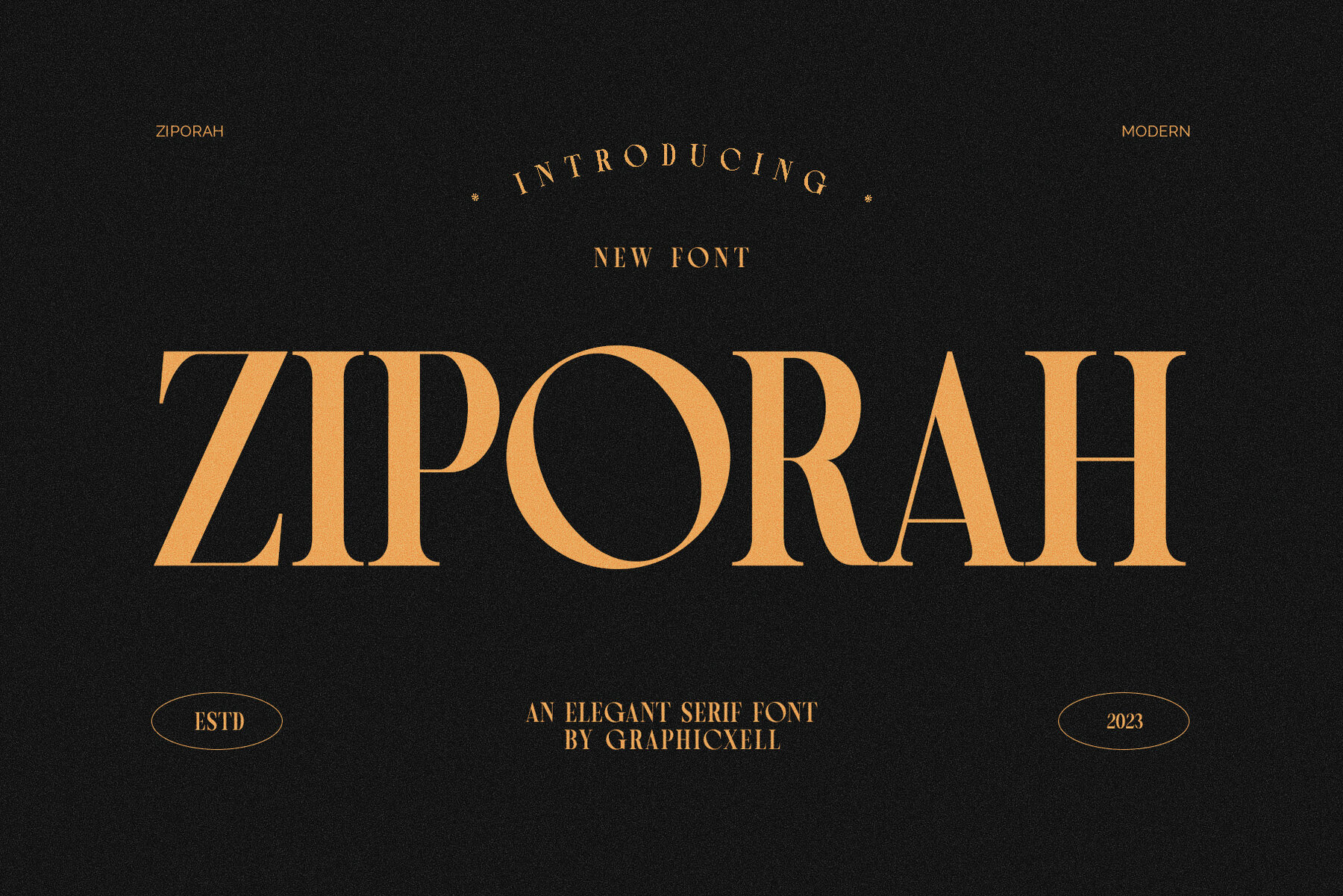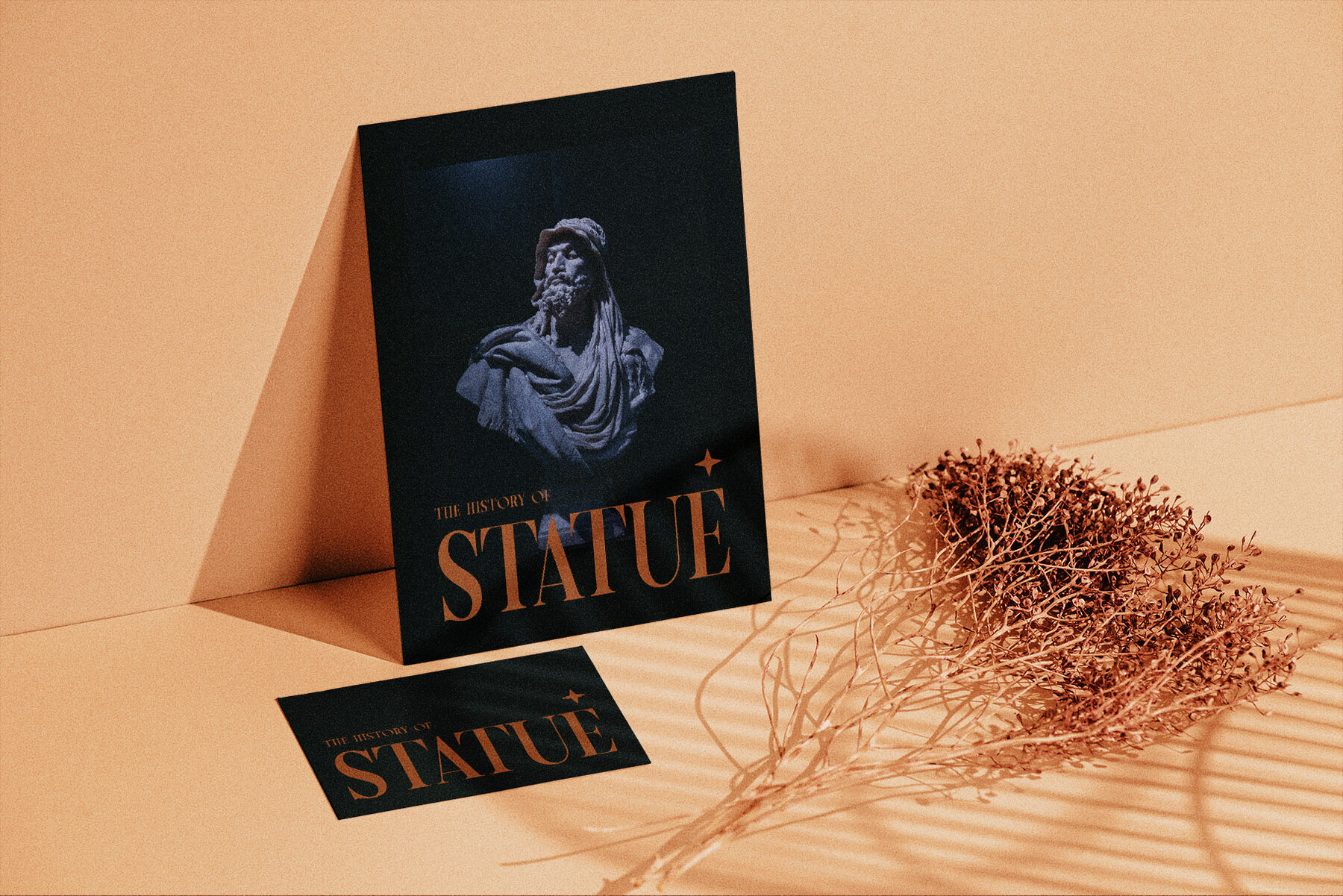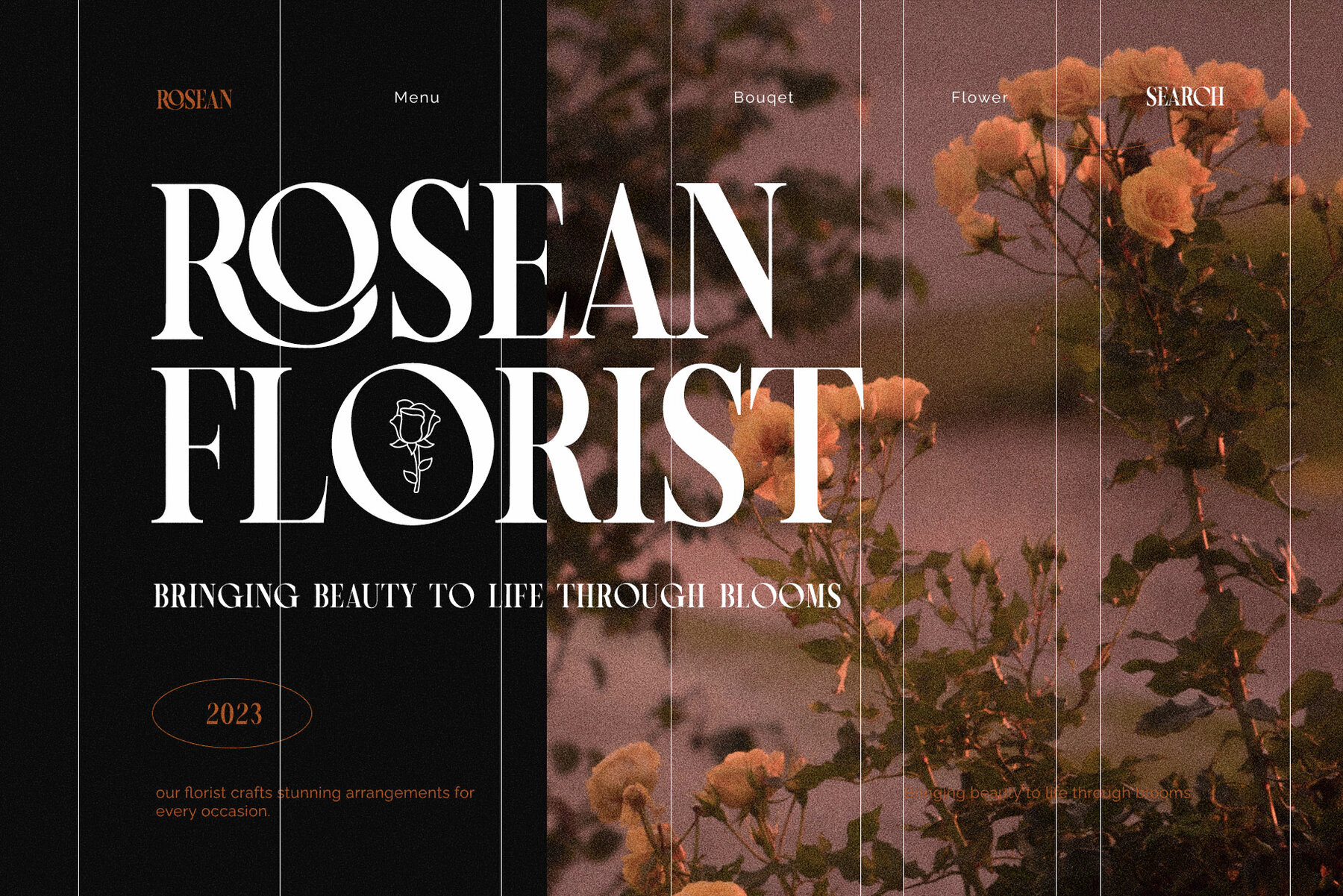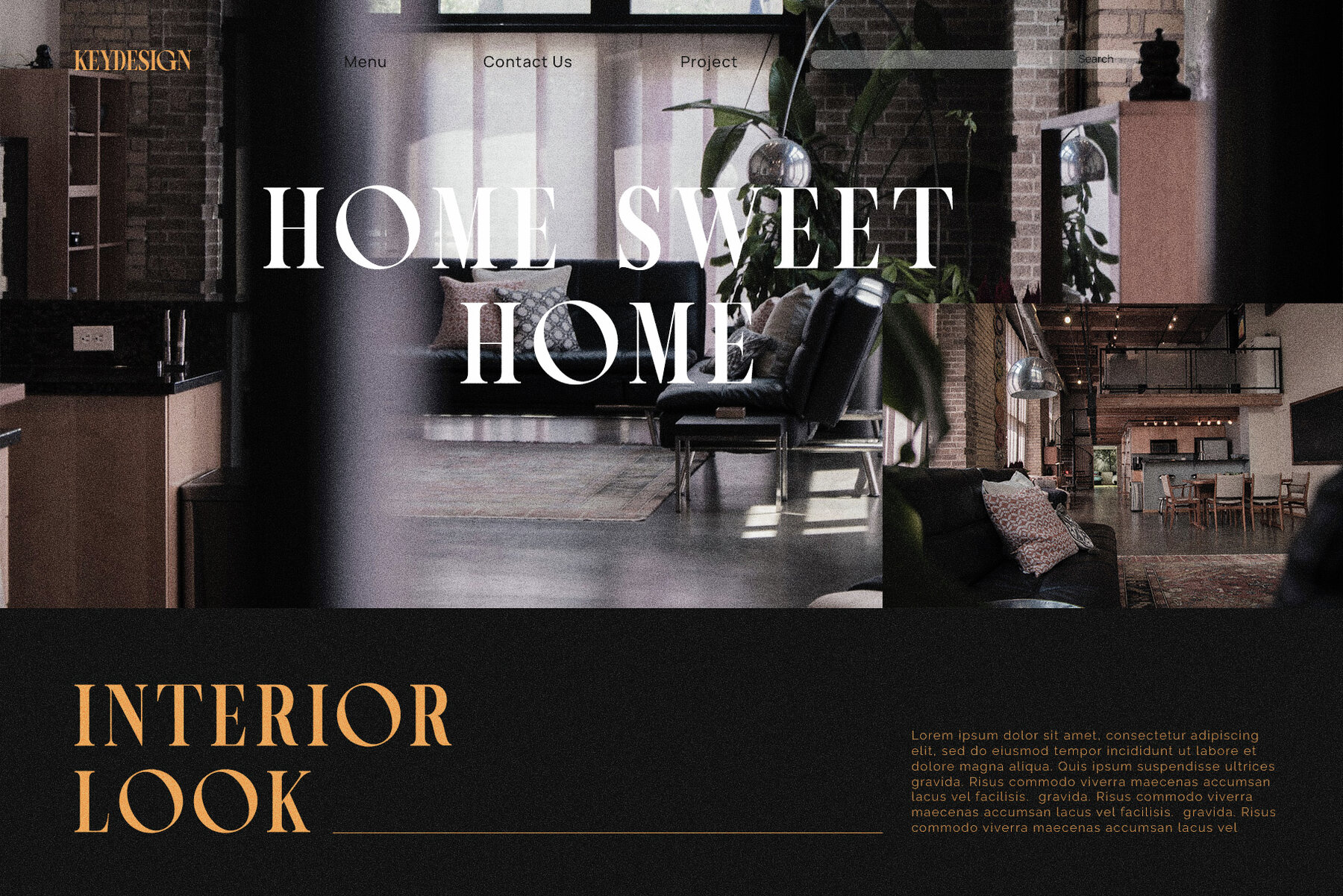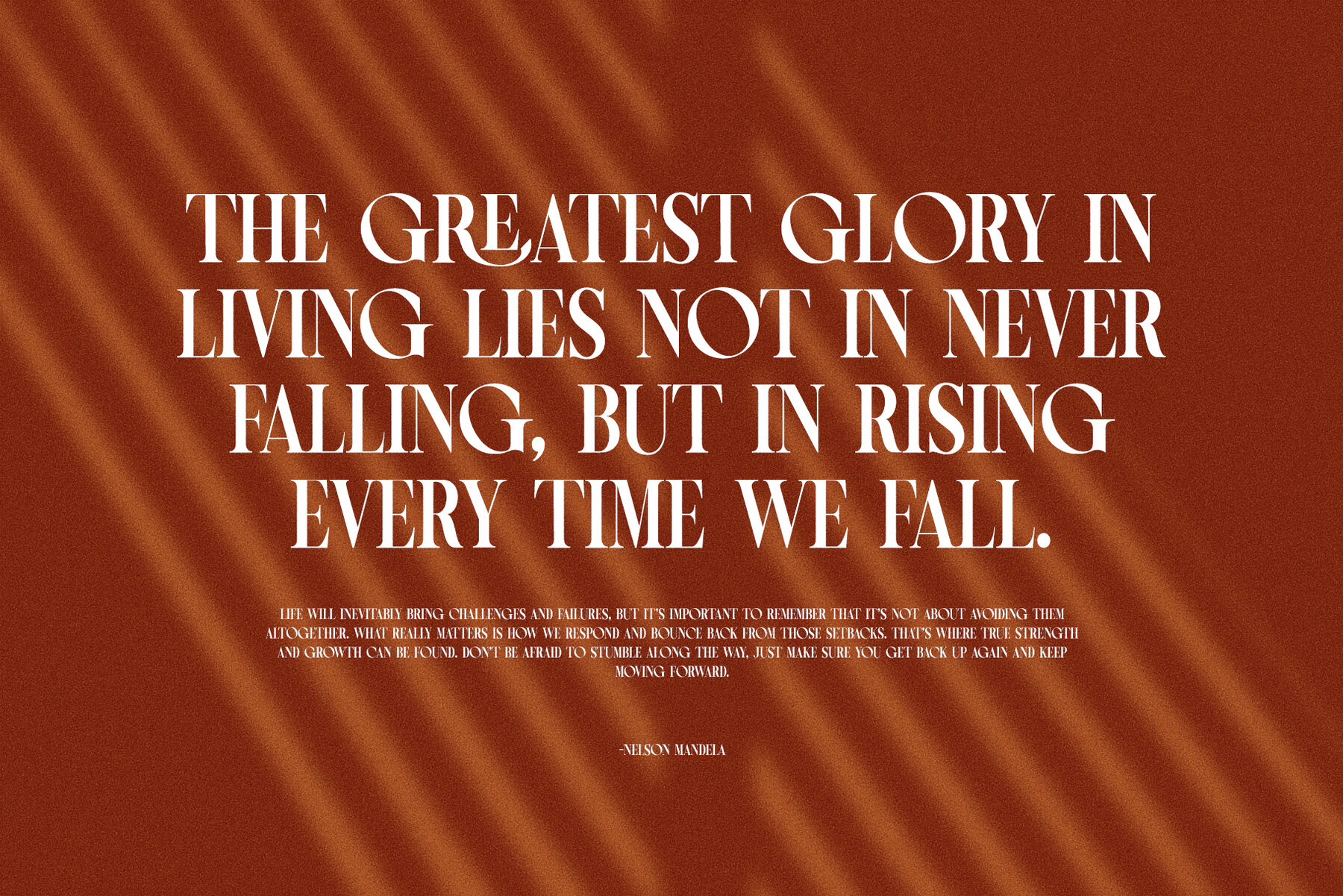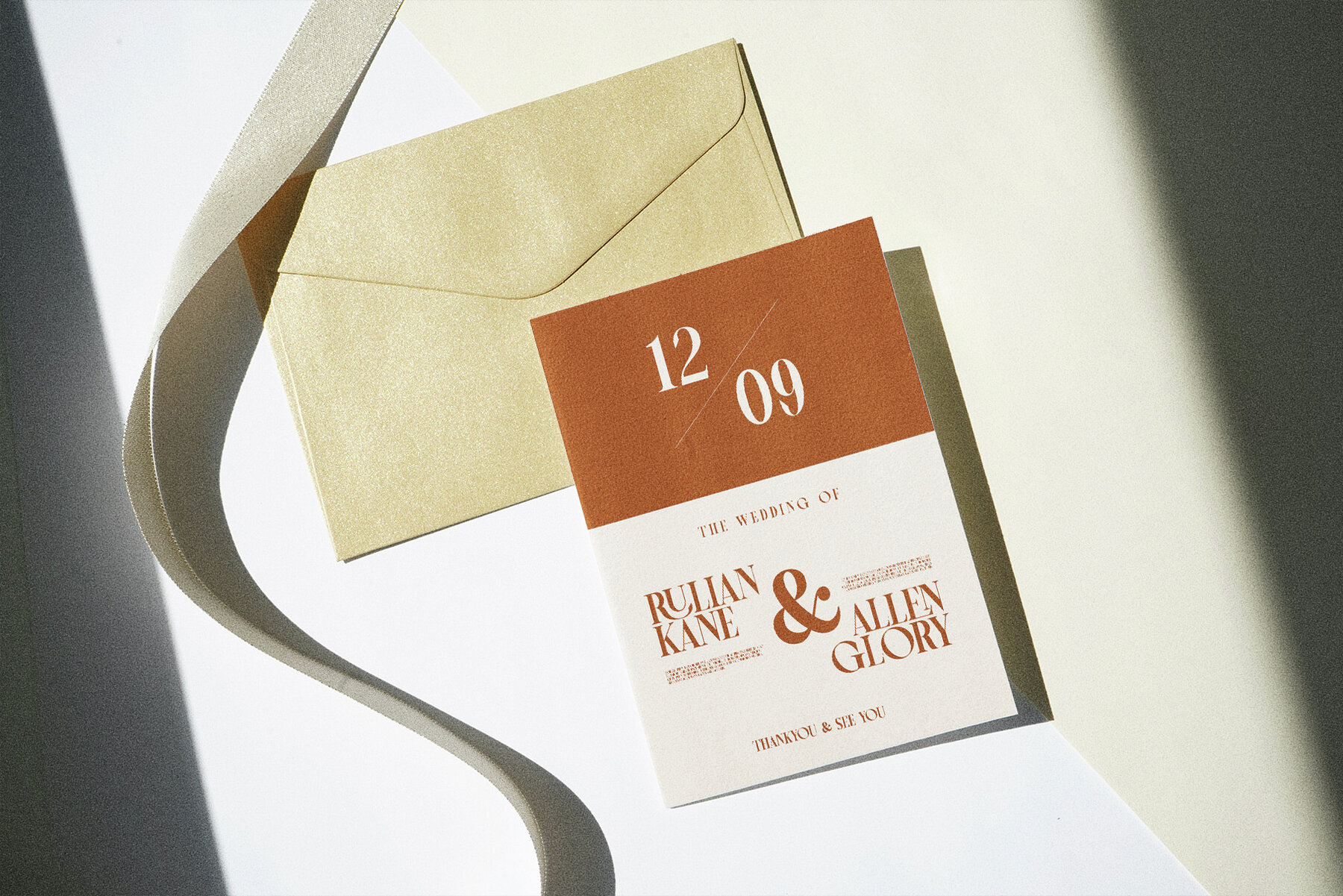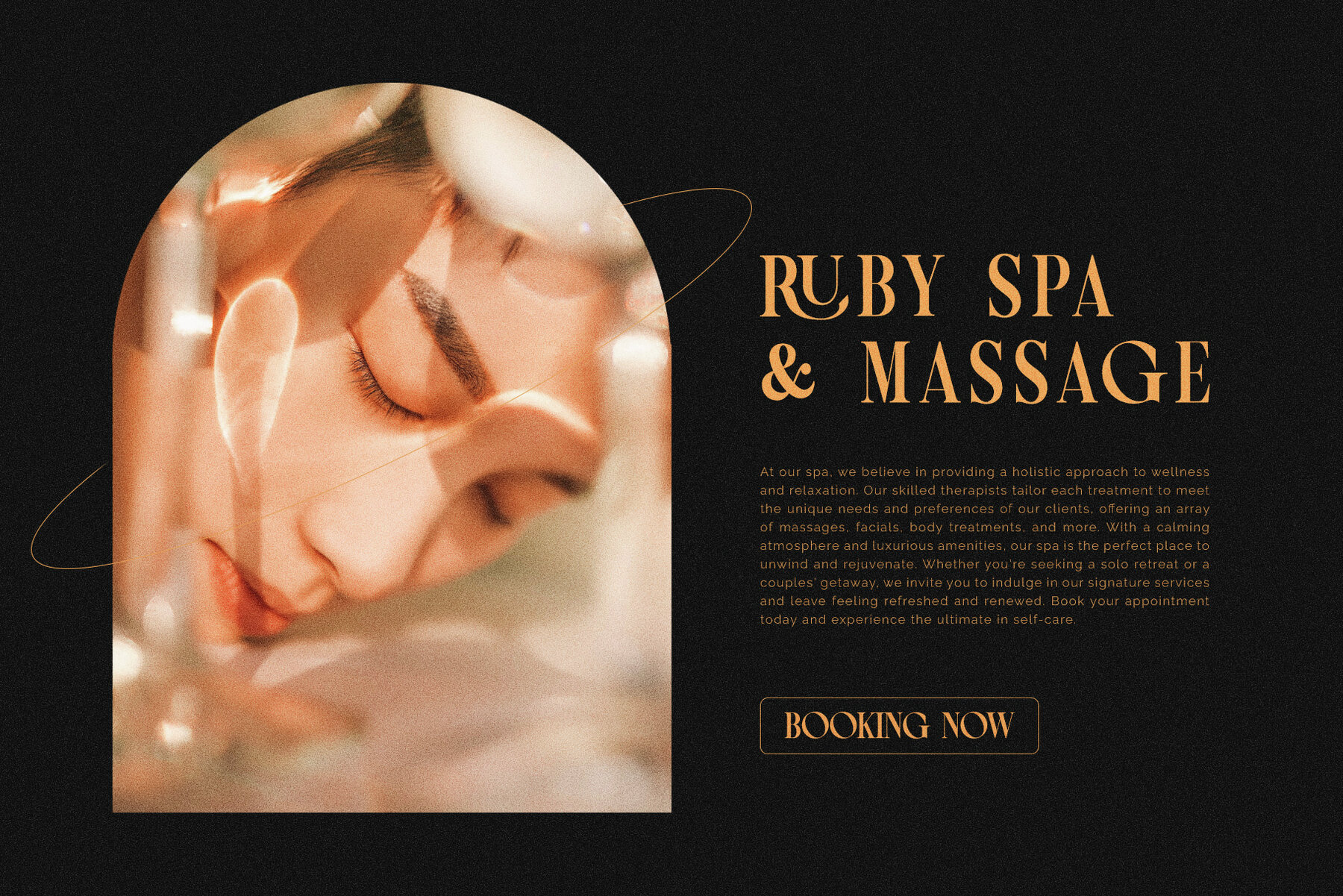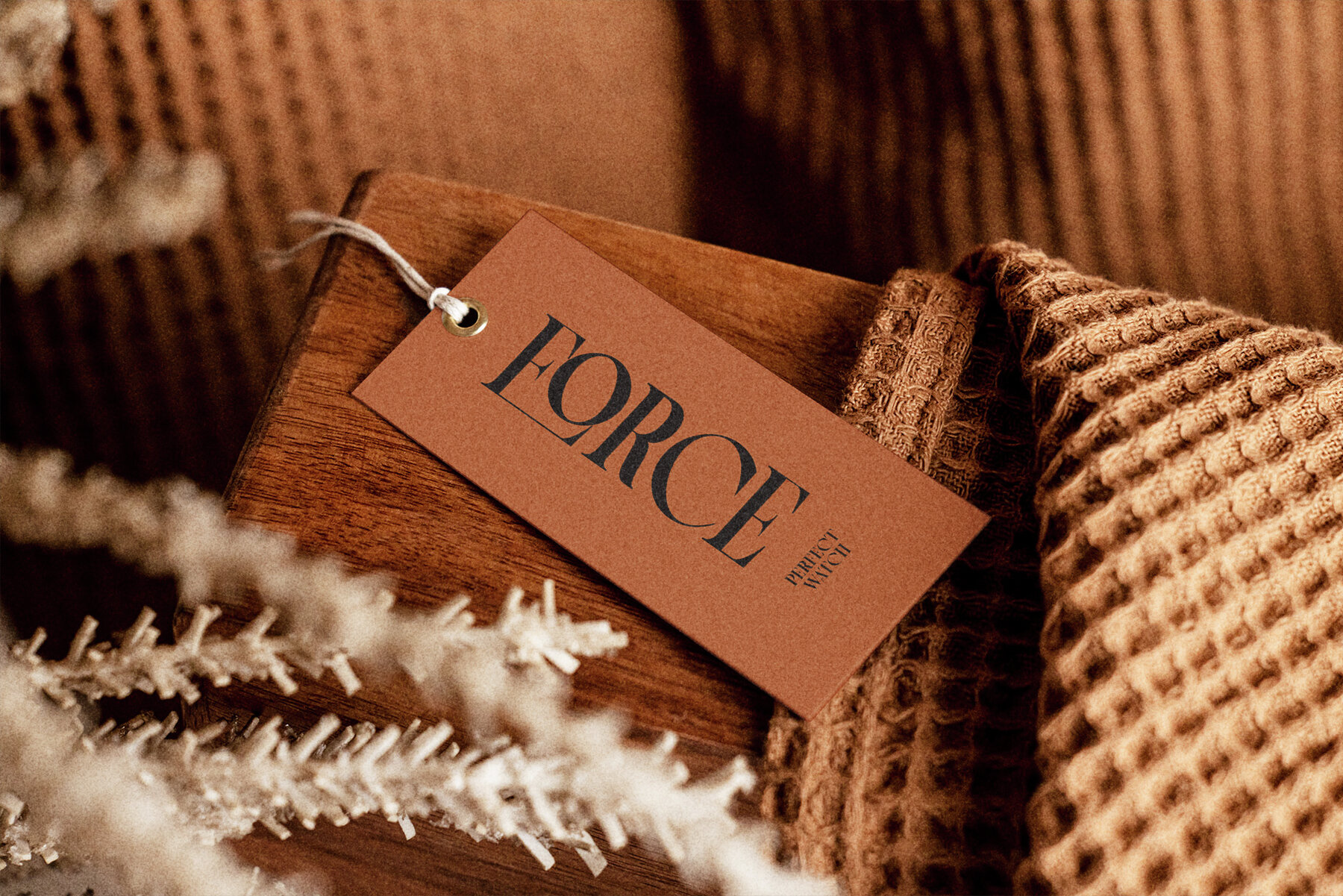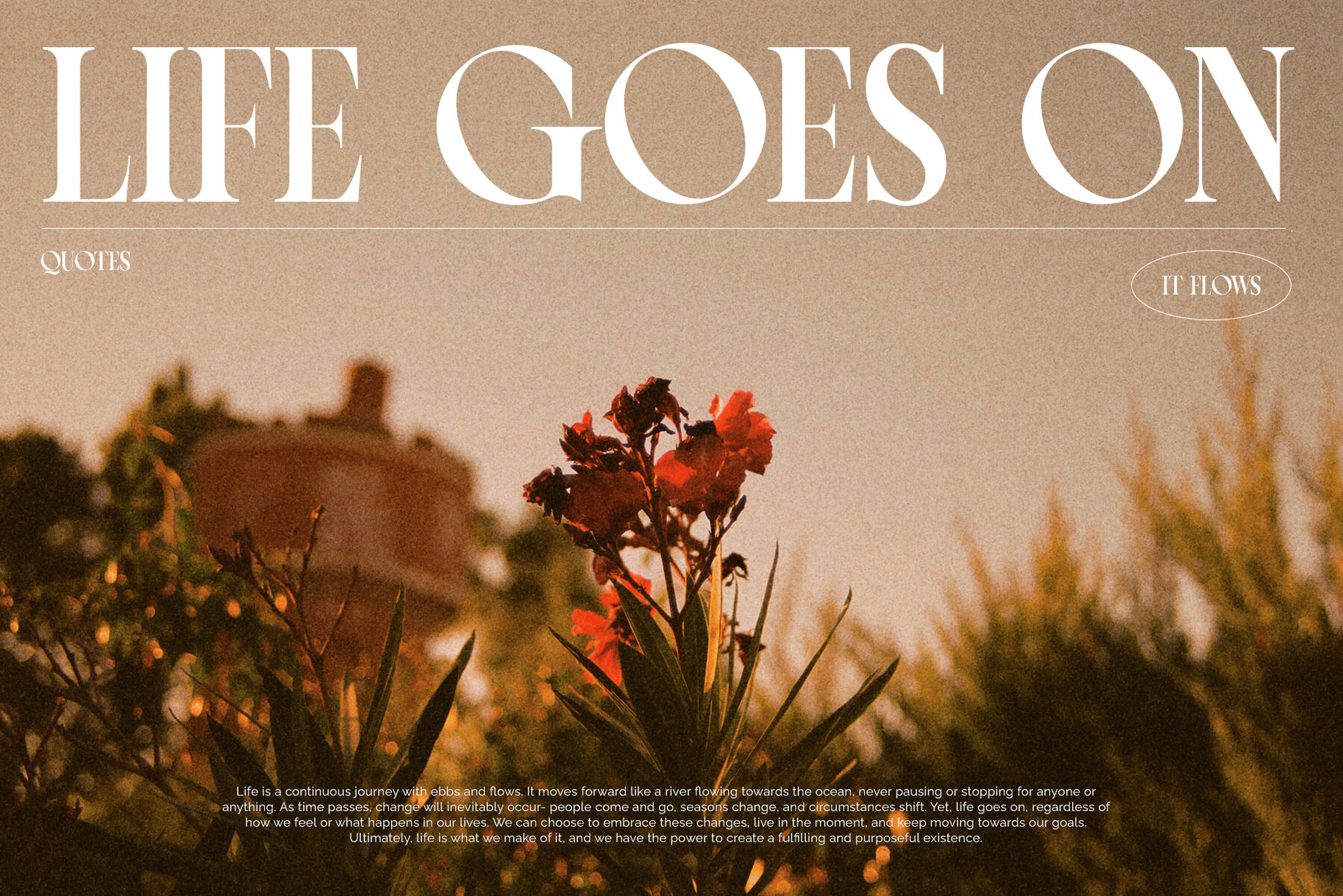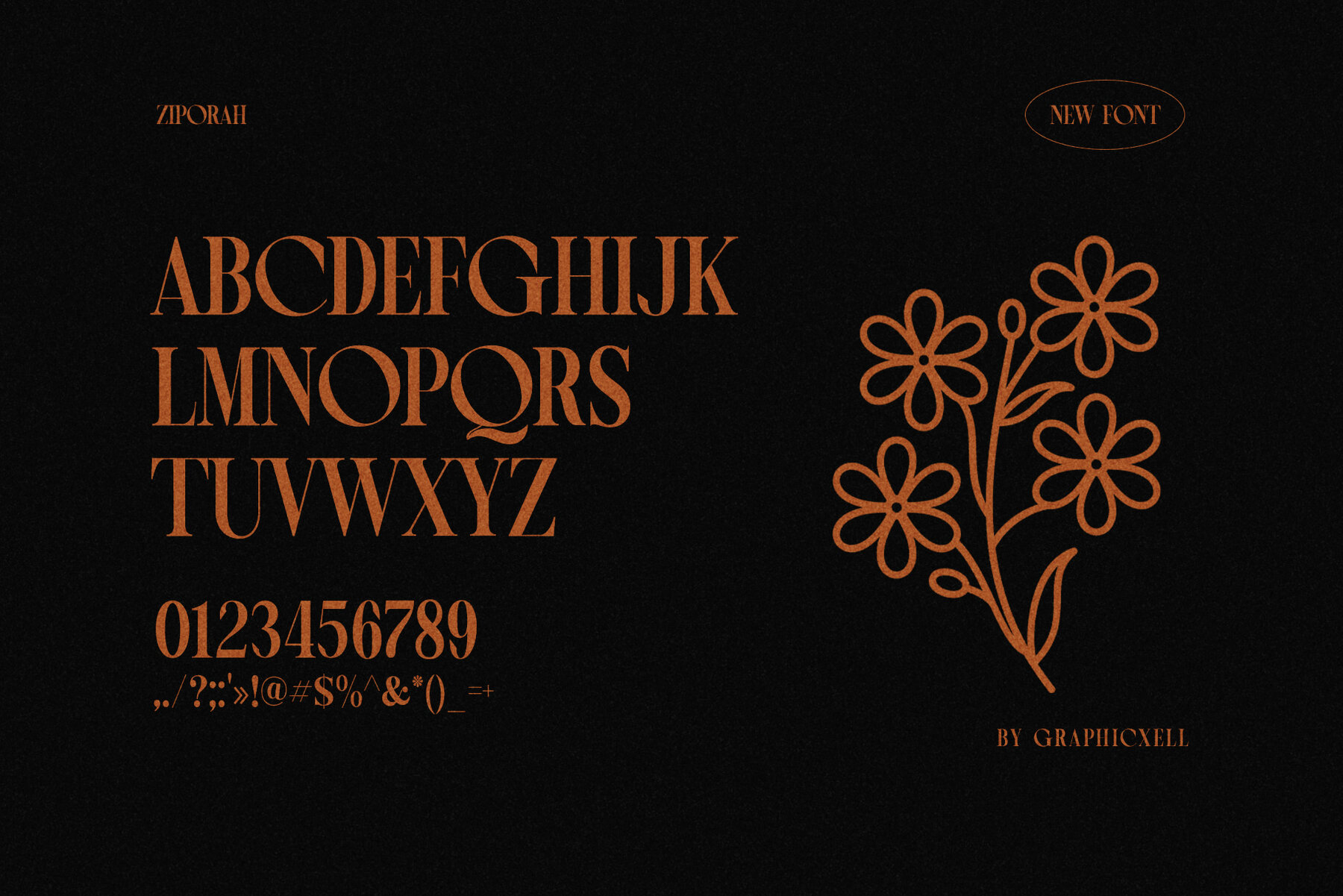
Ziporah Font
Ziporah Regular
Ziporah is a distinct and elegant serif font, ideal for branding and logo designs. Its classy and modern style makes it suitable for a variety of projects, offering high readability and sophistication.Ziporah: Unique Serif Font for Elegant Branding